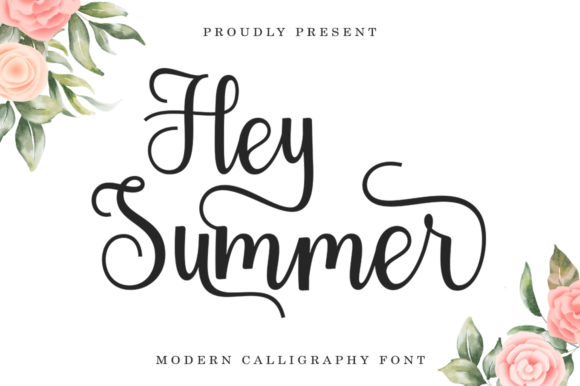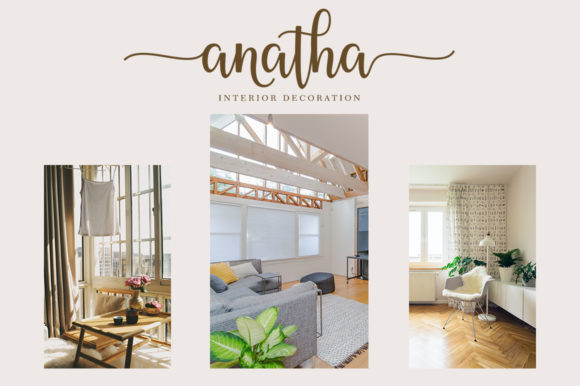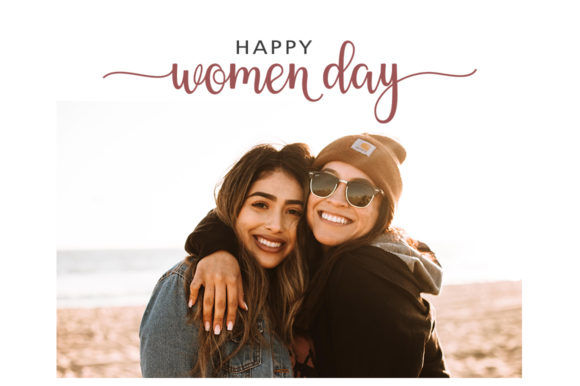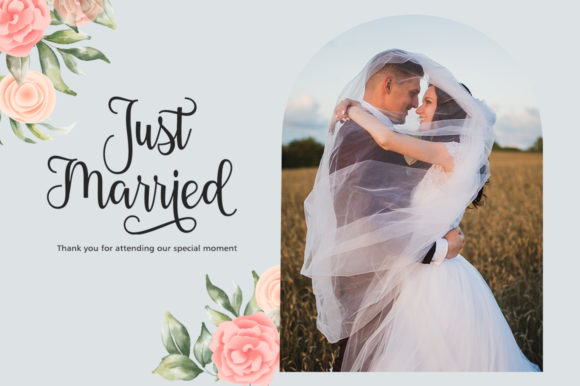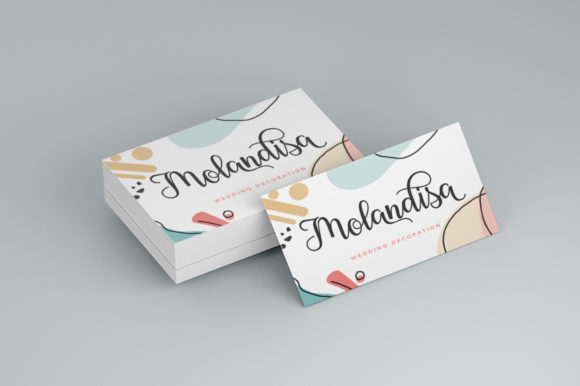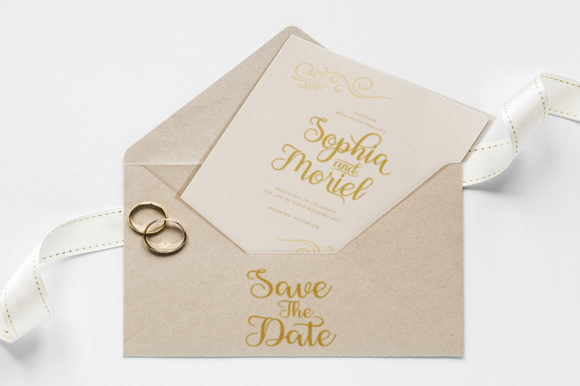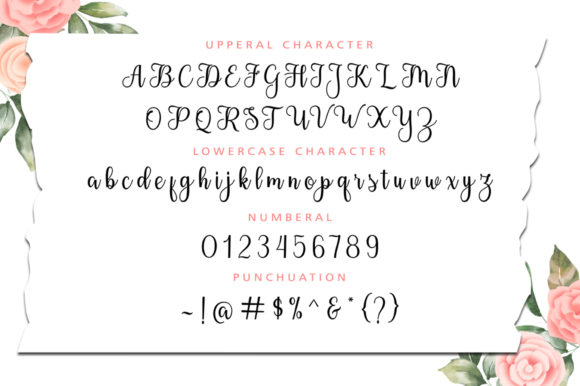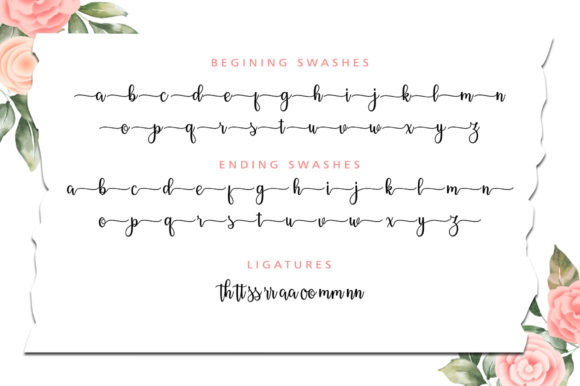
Hey Summer Font
Hey Summer is an enchanting handwritten font. This versatile script font has a wide spectrum of applications ranging from greeting cards to headlines and is guaranteed to add a romantic feel to your next project.